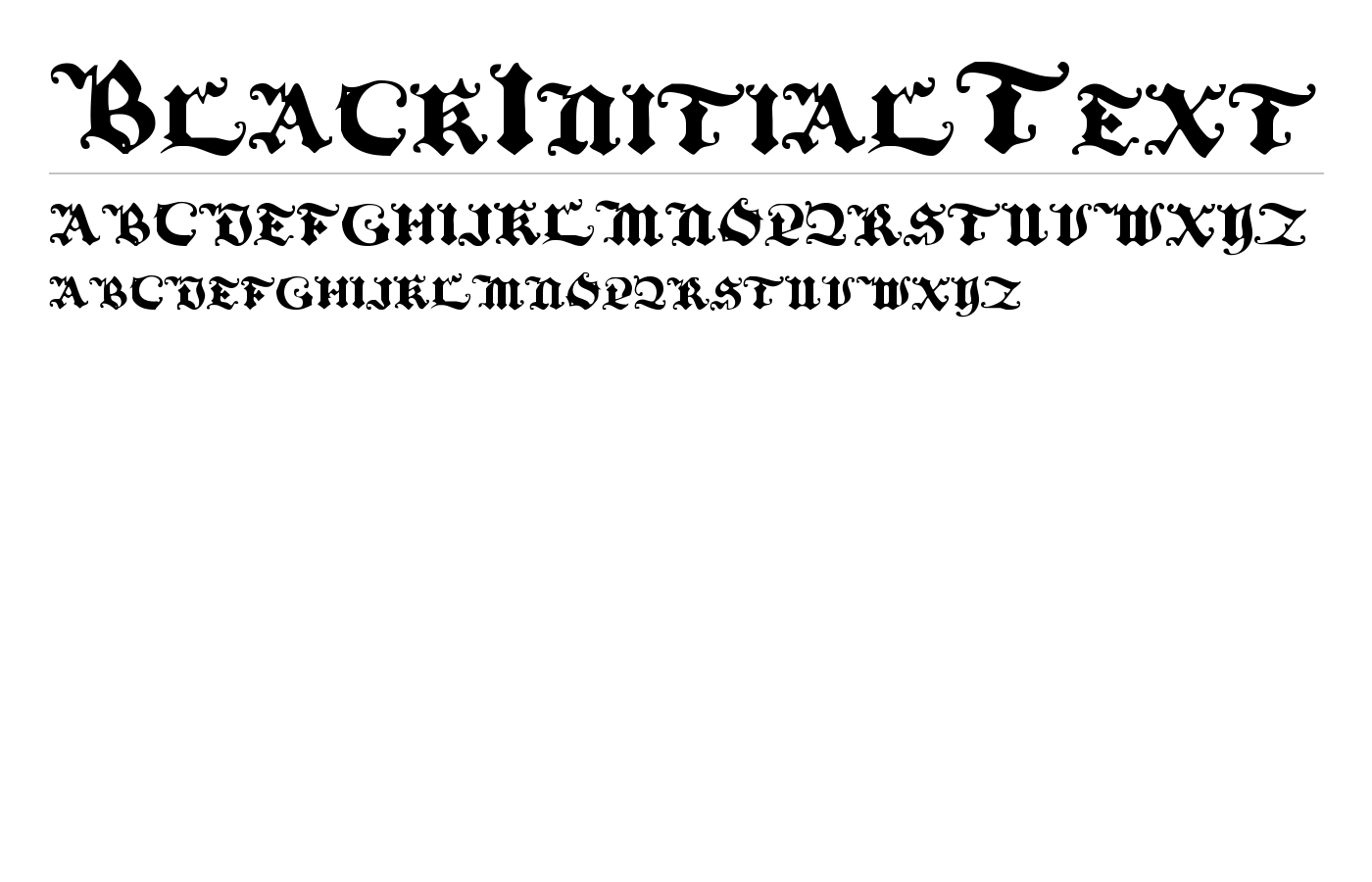
BlackInitialText is a bold, blackletter-style serif font with ornate, intricate details and strong contrasts between thick and thin strokes. Its dramatic, decorative letterforms evoke a historic, gothic feel, making it perfect for vintage-inspired designs, logos, and headlines that require a striking and authoritative presence. This font shines in branding and editorial contexts where a classic, elegant, and powerful mood is desired.